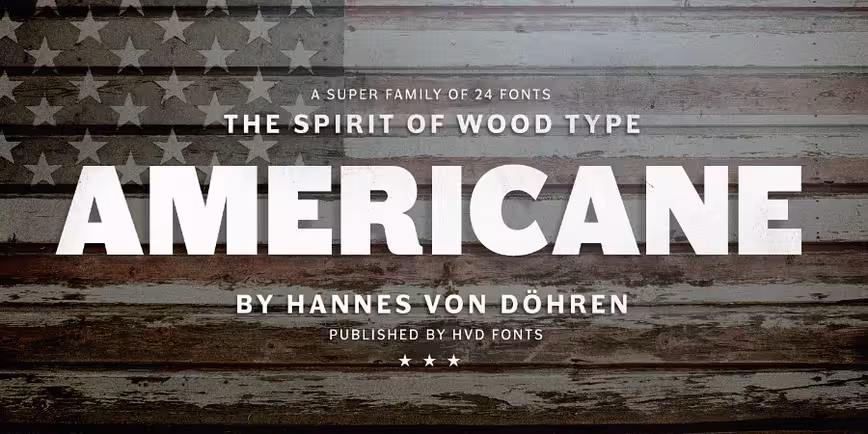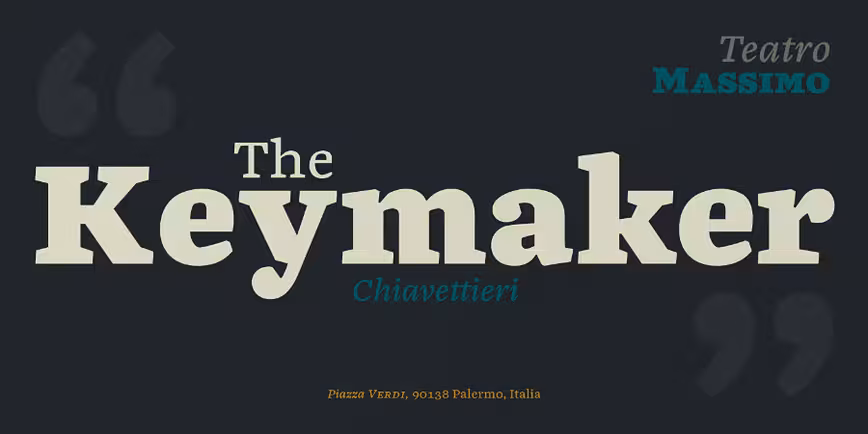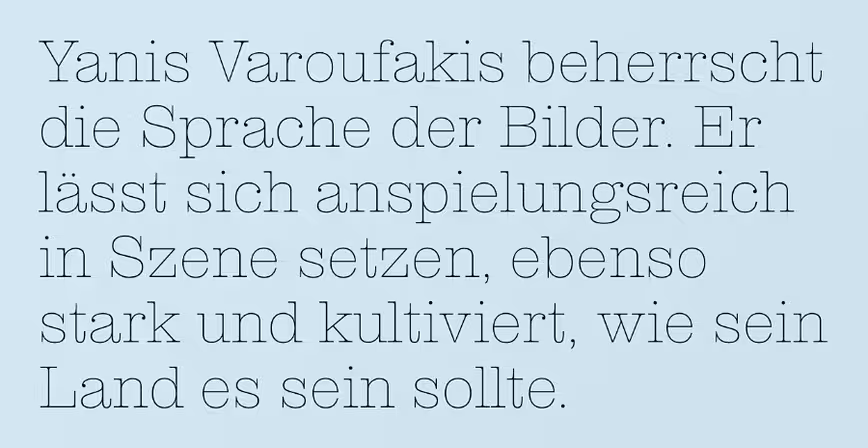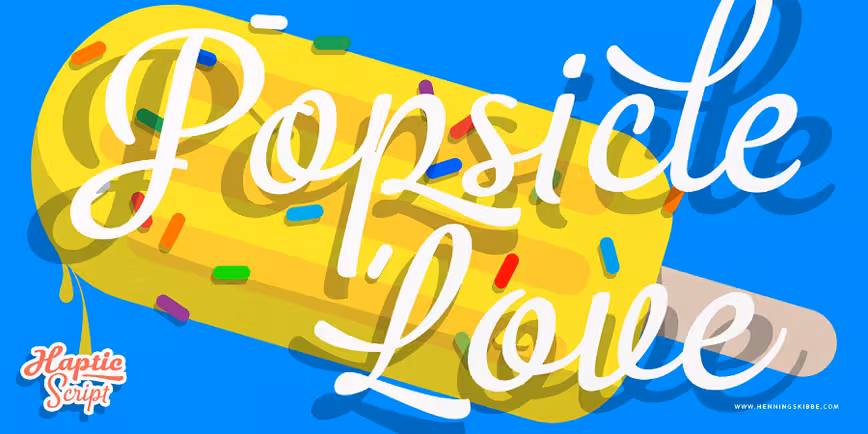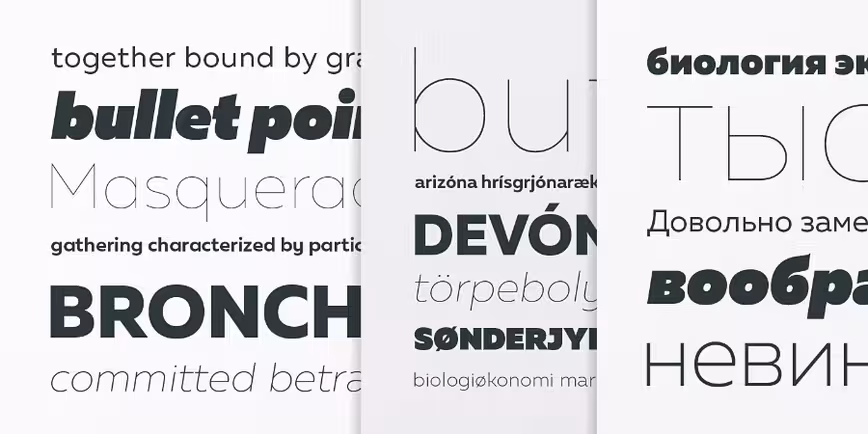
25 of our favorite typefaces released in March
Fontfabric: Muller
Muller is well suited for everything raging from advertising, packaging, editorial and branding, to web and screen projects.
Process Type Foundry: Scandia
With a nod to the classic geometric sans serifs of the 20th century, Scandia builds a steady rhythm across its four weights and matching italics to create a versatile family of fonts.
Sideshow: Snackbar
Snackbar is a classic hand lettered script that is sure to light up any layout.
Flat-it: Piepie
Piepie is very heavy typeface for titlings and captions.
Symbolset: SS Community
SS Community is a carefully crafted set designed for do-gooders.
Latinotype: Boho
Boho is inspired by a bohemian girl who is a free soul and creative spirit.
Henning Skibbe: Haptic Script
Haptic Script is a connected brush script with a warm, personal and soft character.
Grilli Type: GT Cinetype
GT Cinetype is a typeface with mechanical precision, but also a human element that shows its personality in the details.
Cultivated Mind: True North Textures
True North Textures is a vintage typeface with 18 fonts and a monoline script.
Resistenza: Natura
Inspired by old nature field notebooks, Natura was born out of the passion for new modern hand calligraphy.
Ksenya Samarskaya & James Todd: Blesk
A chromatic typeface inspired by vintage book covers.
Angie Makes: Snowberry
Snowberry is a modern, hand-painted brushed font family.
Latinotype: Texta Narrow
Texta Narrow is a contemporary, rational, transparent and useful sans.
Briefcase: BC Mikser
A monolinear, dynamic, sans serif typeface with a uniform character width.
HVD Fonts: Americane
Americane is inspired by old wood type specimen books – strong, decided and edgy.
Kostic: Chiavettieri
Chiavettieri is a robust, well balanced, legible typeface.
Optimo: Clarendon Graphic
A highly graphic, fluid and dynamic typeface.
Tipo Pèpel: Pobla
Pobla was designed for body text in small sizes.
Mint Type: Diaria Pro
A low contrast serif designed as a primary text face for newspapers.
Commercial Type: Druk Text
Druk Text is a display face designed for small sizes.